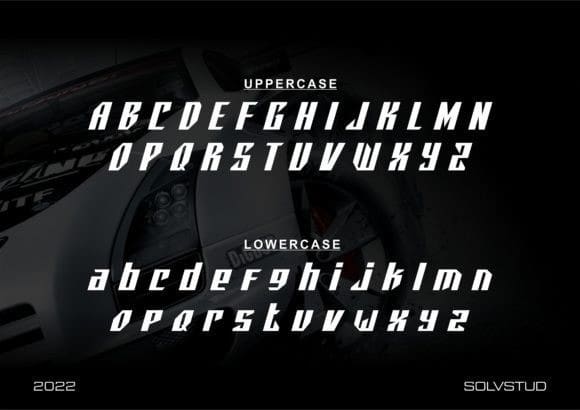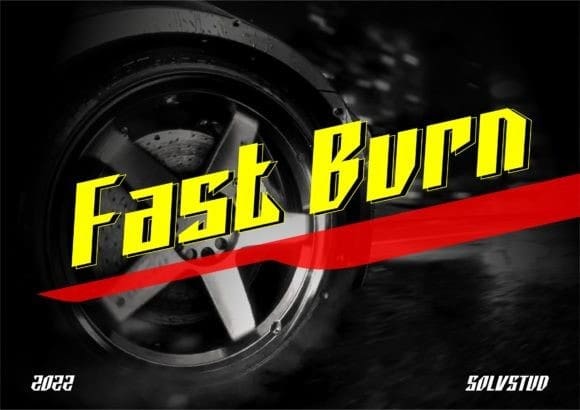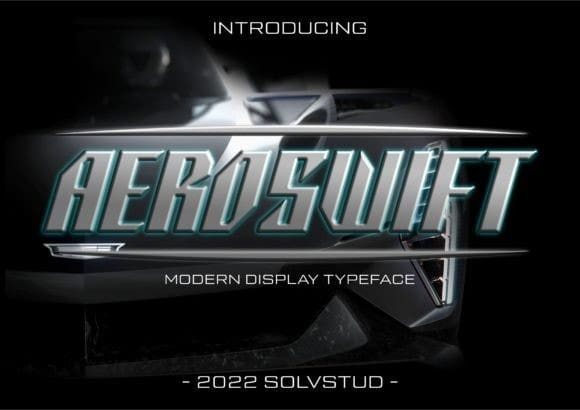
Aeroswift Display Font
Aeroswift Display Font is a modern techno display font. No matter the topic, this font will be an incredible asset to your fonts’ library, as it has the potential to elevate any creation.